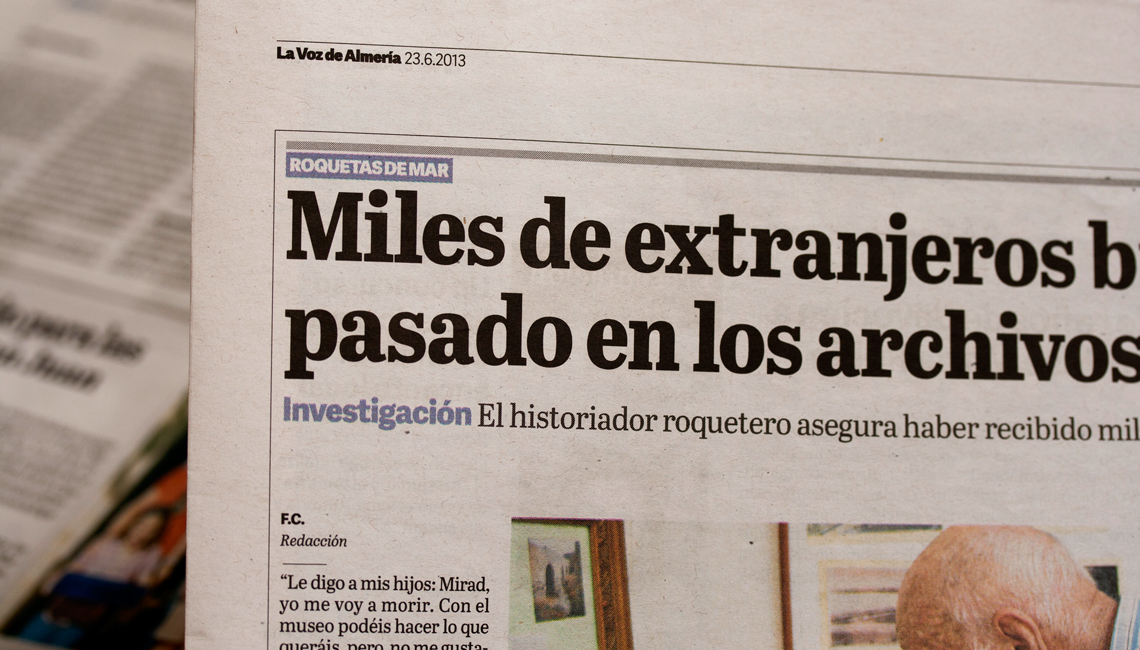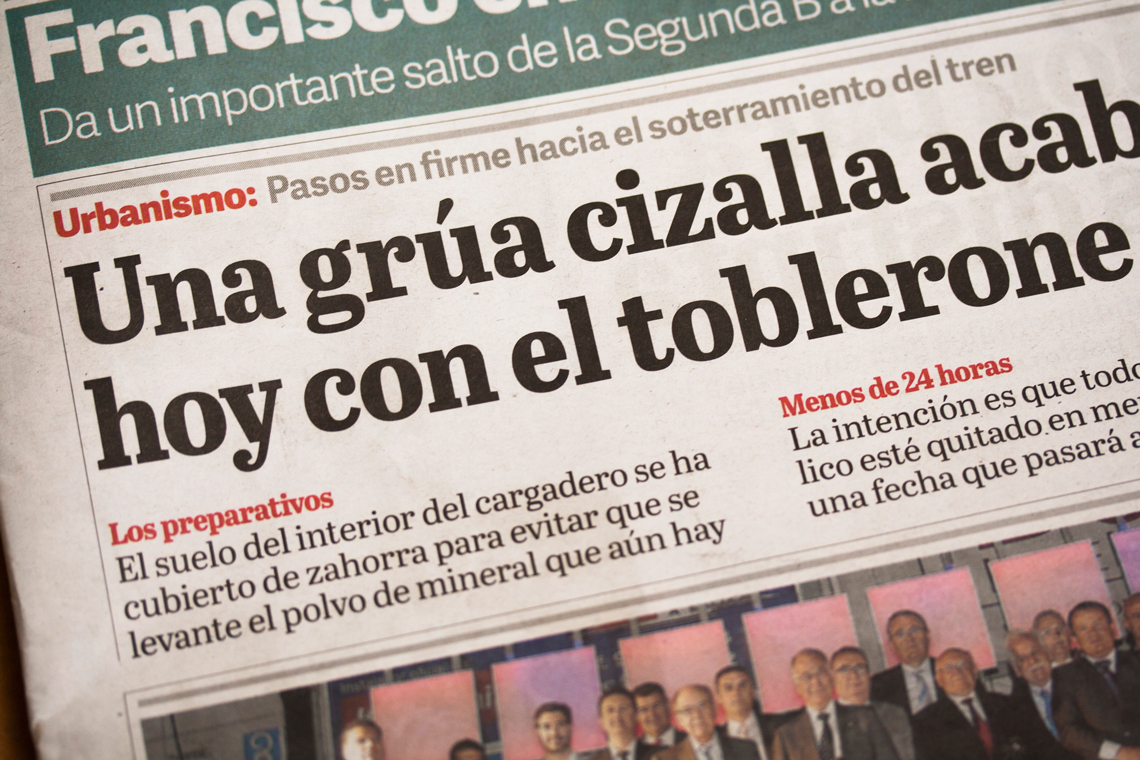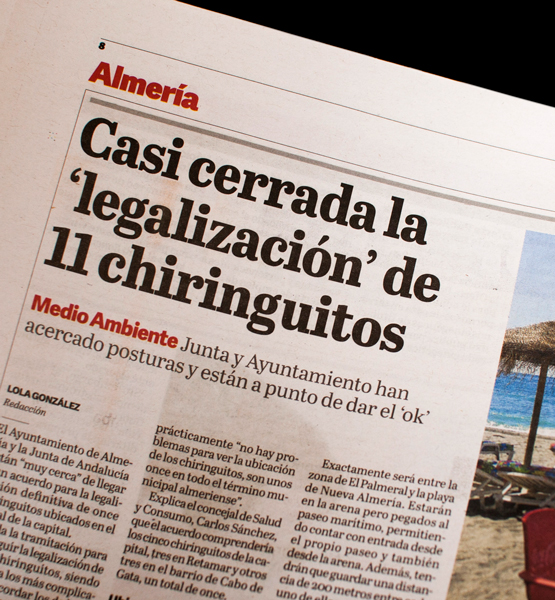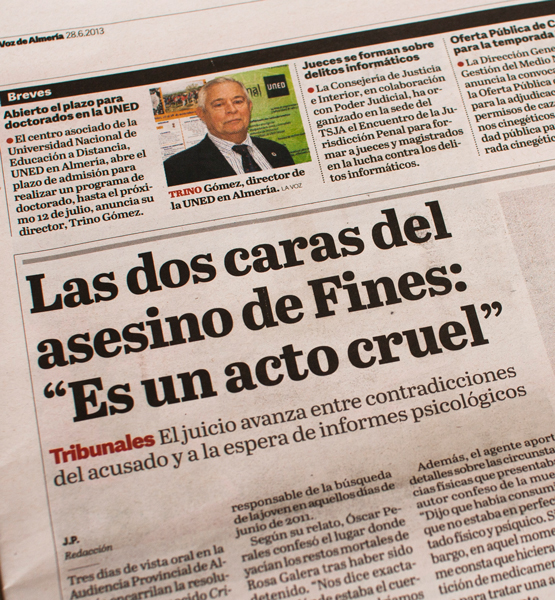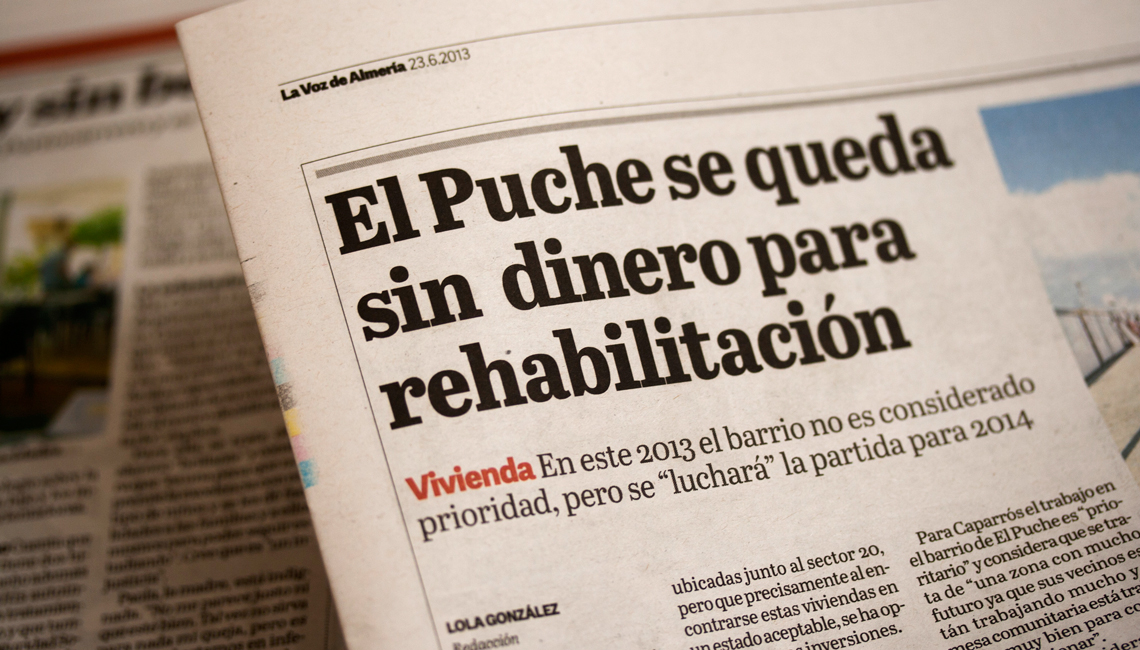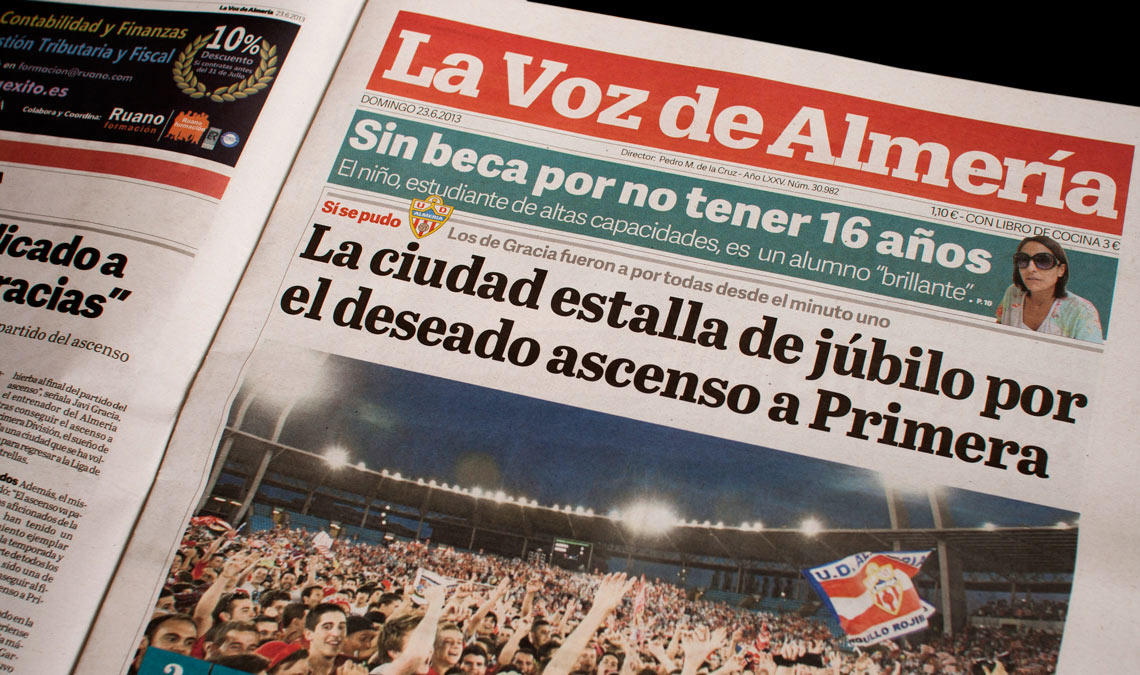
Abril Almeria, a custom type family
TypeTogether collaborated with the renowned news design and consultancy firm Cases i Associats to develop a titling typeface for the daily newspaper La Voz de Almería.
The design of this custom font, based on Abril Text, delivers a striking typographic color for titles in a wide range of sizes, and supports the newsy yet appealing aspect of the newspaper. Cases i Associats' art director for this project, Violeta Valle, collaborated closely with Burian and Scaglione in the fine tuning of these tailored headlines, which furnished La Voz de Almería with a highly effective and unique voice.
Even the slightest adjustment in a font can make a sensible difference in typesetting. In this vein, text-intensive pieces such as newspapers, web portals or magazines depend a good deal on the graphic designer’s typographic sensitivity and good taste.
News consultancy firm Cases i Associats contacted us to develop a tailored font based on our own newspaper type family Abril. The objective was to generate a new style that, while sharing the curve strength and low contrast of the Abril text fonts, could be used for setting titles.
Lettershapes, proportions, color and spacing in headline typefaces are distinctly different from text fonts. The personality of lettershapes in headlines should be molded in careful agreement with the editorial direction of a publication. For the development of Abril Almería we were able to work side by side with the news consultants in the fine tuning of a new typeface for these tailored headlines, which furnished La Voz de Almería with a highly effective and unique voice.
The resulting face is based on Abril Text, but due to its display use, some features were changed. For example, some of the optical compensations, such as the serif angle, necessary for text sizes, were removed. This adds to the newsy feel and gives the shapes more evenness along the x-height. Additionally, the letter widths and spacing were condensed to fit more characters per line and the overall color was increased to deliver more impact in large headlines on the front pages.